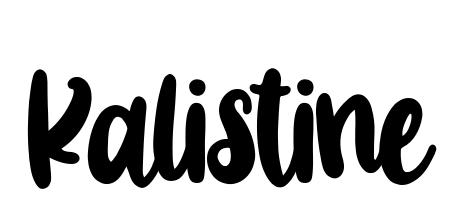
Kalistine
Kalistine: A playful script font, Kalistine dances across the page with its charming curves and expressive strokes. It whispers of whimsical adventures and heartfelt messages, perfectly balancing elegance and a touch of carefree spirit. Ideal for invitations, logos, and anything needing a touch of friendly charm.